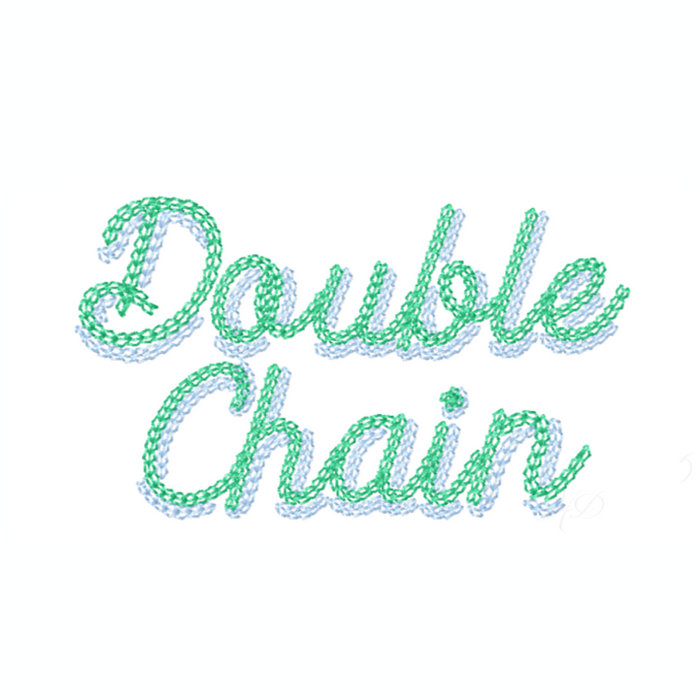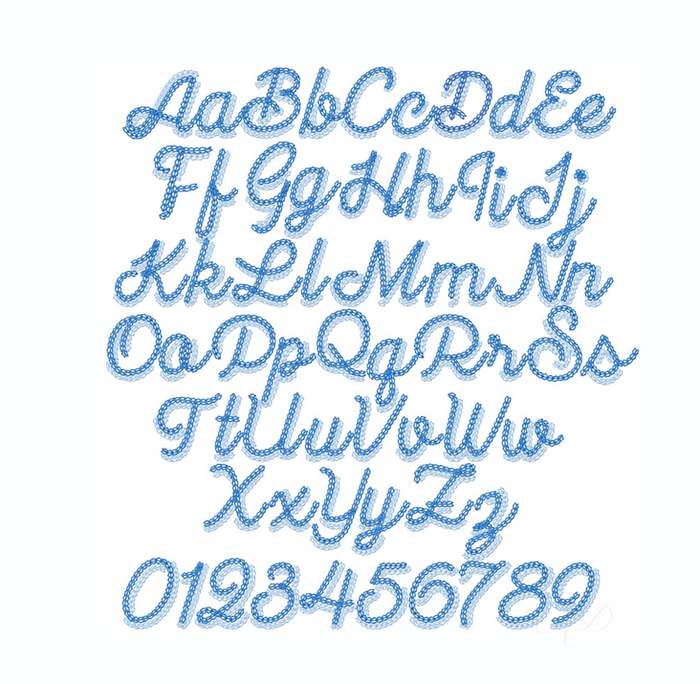
4x4 Double Chain Stitch Shadow Script Embroidery Font
Elevate your crafting with the 4x4 Double Chain Stitch Shadow Script Embroidery Font. This versatile two-color chain stitch font is designed for machine embroidery and includes both uppercase and lowercase letters (A-Z) as well as numbers (0-9). Perfect for personalizing any project!